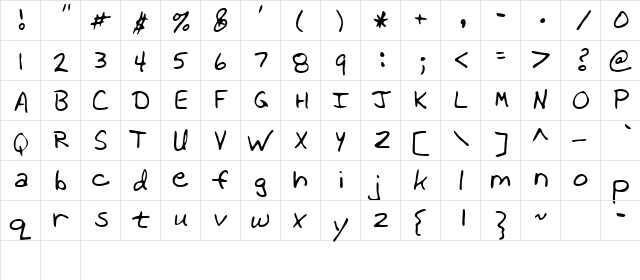
Willow Regular
Design Context for Willow Typeface
Willow is a composed and adaptable typeface that performs quietly and consistently across a wide range of design contexts.